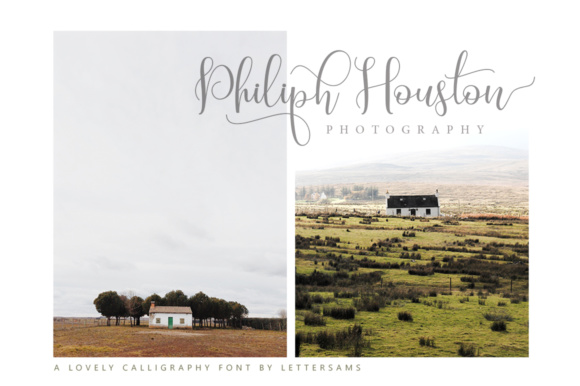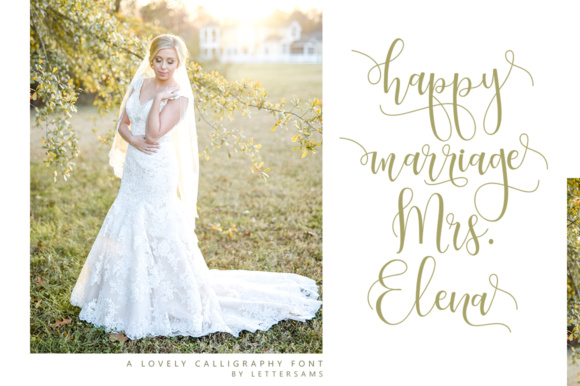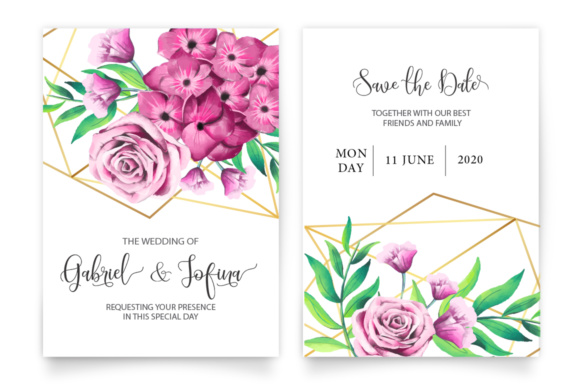
Introduction to Marihouse Script Font
Marihouse Script is a beautiful calligraphy design, including Regular and italic.
This font is enough with a sweep Can be used for various purposes.
Why Choose Marihouse Script Font?
Marihouse Script Font offers exceptional quality and versatility, making it a valuable addition to your design toolkit. Whether you’re creating for personal projects or commercial use, Marihouse Script Font delivers professional results.